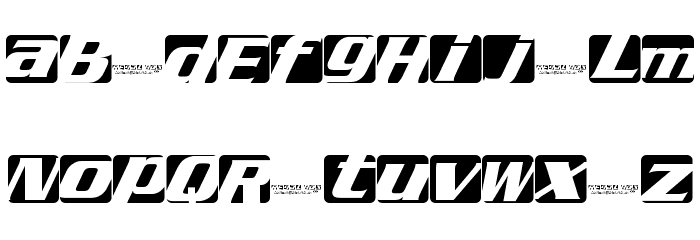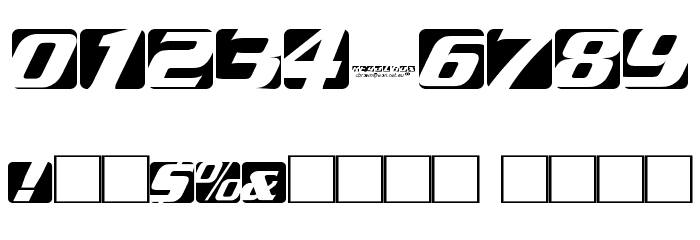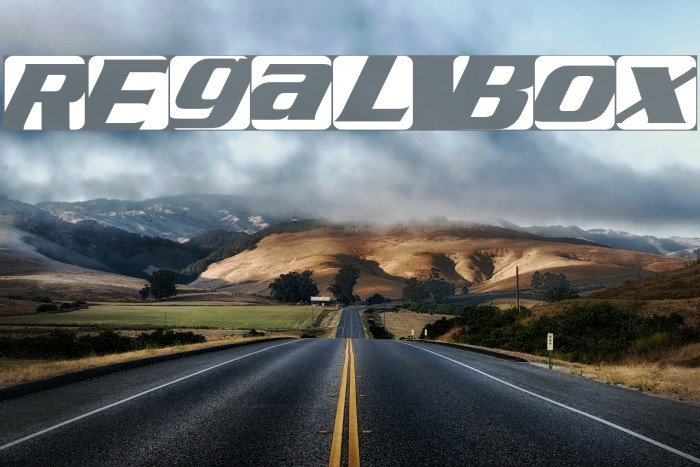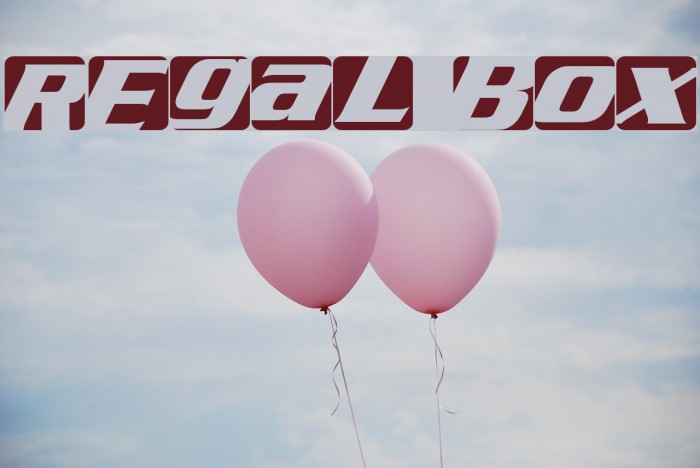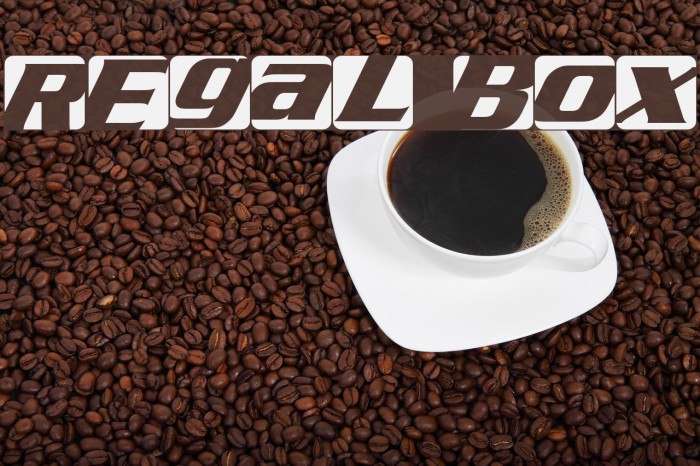
Regal box Font
This font features a bold and dynamic design with a futuristic flair. Each character is crafted with sharp angles and a distinct slant, giving it a sense of motion and speed. The letters are blocky and geometric, with a strong emphasis on horizontal lines and a unique cut-out style that adds depth and dimension. The numbers and special characters follow the same design principles, ensuring consistency across all elements. This font is ideal for projects that require a modern and edgy look, such as tech-related branding or sports team logos.
A bold, futuristic font with sharp angles and a dynamic slant.
- Proposed Projects: Ideal for tech branding, sports logos, and modern advertising campaigns.
- Use Case: Logos, Headlines